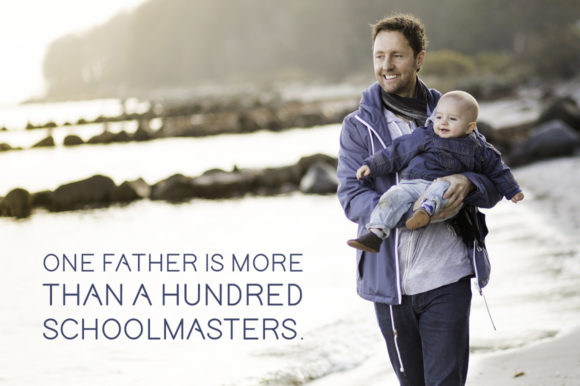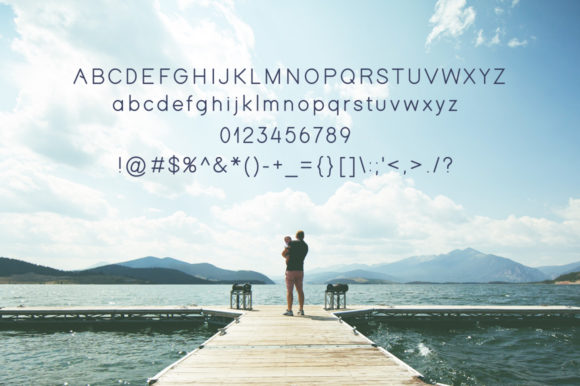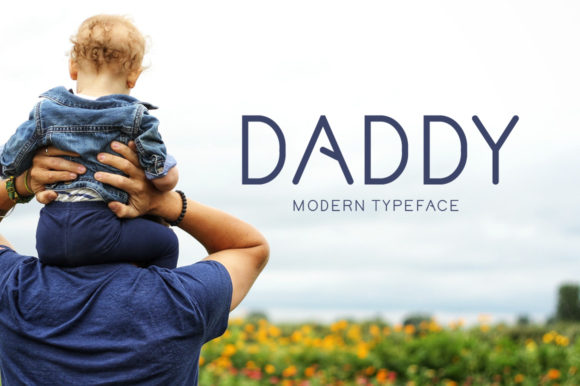
Daddy Font: The Modern Display Font for Creative Designs
In the world of typography, fonts play a crucial role in conveying the tone and personality of a design. For designers and crafters, finding the perfect font can be a daunting task, especially when it comes to creating visually appealing and effective designs. This is where Daddy Font comes in – a modern display font that has taken the design community by storm. In this article, we’ll explore the features, benefits, and uses of Daddy Font, and why it’s become a go-to choice for designers and crafters alike.
What is Daddy Font?
Daddy Font is a modern display font that boasts a relaxed feel, making it perfectly suited for a wide range of design applications. Its unique style and versatility have made it a popular choice among designers, who use it for creating stunning stationery, logos, t-shirts, paper designs, print materials, website headers, photo frames, flyers, music covers, posters, image sliders, and much more.
Key Features of Daddy Font
So, what makes Daddy Font stand out from the rest? Here are some of its key features:
• Relaxed feel: Daddy Font has a laid-back, casual vibe that gives designs a friendly and approachable tone.
• Modern style: Its modern design makes it perfect for creating contemporary and trendy designs.
• Versatility: Daddy Font can be used for a wide range of design applications, from print materials to digital designs.
• Easy to read: Despite its modern and relaxed feel, Daddy Font remains highly legible, making it perfect for use in various design contexts.
Benefits of Using Daddy Font
So, why should designers and crafters choose Daddy Font for their projects? Here are some benefits of using this amazing font:
• Unique designs: With Daddy Font, designers can create unique and eye-catching designs that stand out from the crowd.
• Time-saving: Its versatility and ease of use save designers time and effort, allowing them to focus on other creative aspects of their projects.
• Consistency: Daddy Font’s consistent style ensures that designs have a cohesive look and feel, which is essential for building brand identity.
Use Cases for Daddy Font
Daddy Font is an incredibly versatile font that can be used in a wide range of design applications. Here are some popular use cases:
• Stationery: Create beautiful stationery, including business cards, letterheads, and envelopes.
• Logos: Design stunning logos that capture the essence of a brand.
• T-shirts and apparel: Create eye-catching designs for t-shirts, hoodies, and other apparel.
• Print design: Use Daddy Font in brochures, flyers, posters, and other print materials.
• Website headers: Add a touch of elegance to website headers and hero sections.
• Photo frames and art: Create beautiful photo frames, art pieces, and social media graphics.
• Music covers and posters: Design stunning music covers, posters, and event flyers.
Font Name Daddy Font
Author Seemly Fonts
In conclusion, Daddy Font is a modern display font that has captured the hearts of designers and crafters worldwide. Its relaxed feel, modern style, and versatility make it an excellent choice for a wide range of design applications. With its ease of use, consistency, and cross-platform compatibility, Daddy Font is sure to become a staple in every designer’s toolkit. Whether you’re a seasoned designer or a crafty DIY enthusiast, Daddy Font is an excellent addition to your design arsenal.